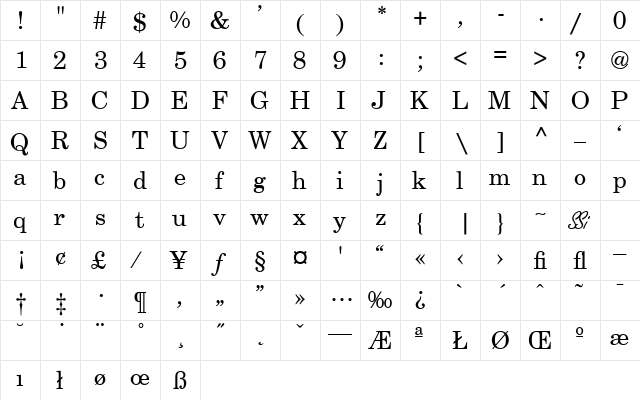
Century Schoolbook SSi Regular
Century Schoolbook SSi offers clean, dependable letterforms without strong stylistic allegiance, making it a practical choice for designers who need flexibility.